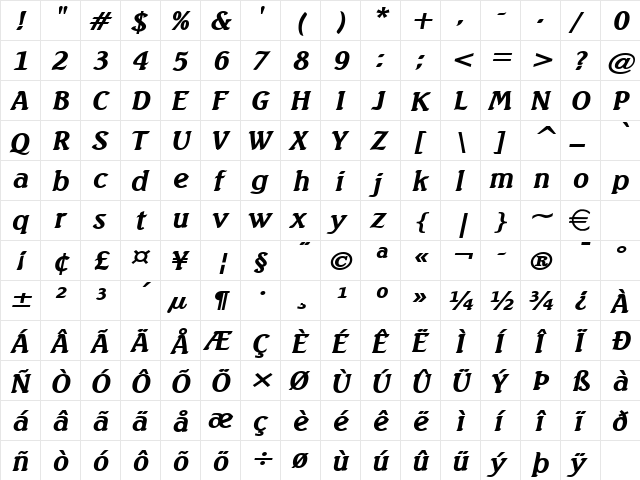
BeachWide BoldItalic
Design Context for BeachWide Typeface
BeachWide is a composed and adaptable typeface that performs quietly and consistently across a wide range of design contexts. The dynamic lean of this cut emphasises speed and emphasis in any layout. The heavy weight commands attention and anchors typographic hierarchies.